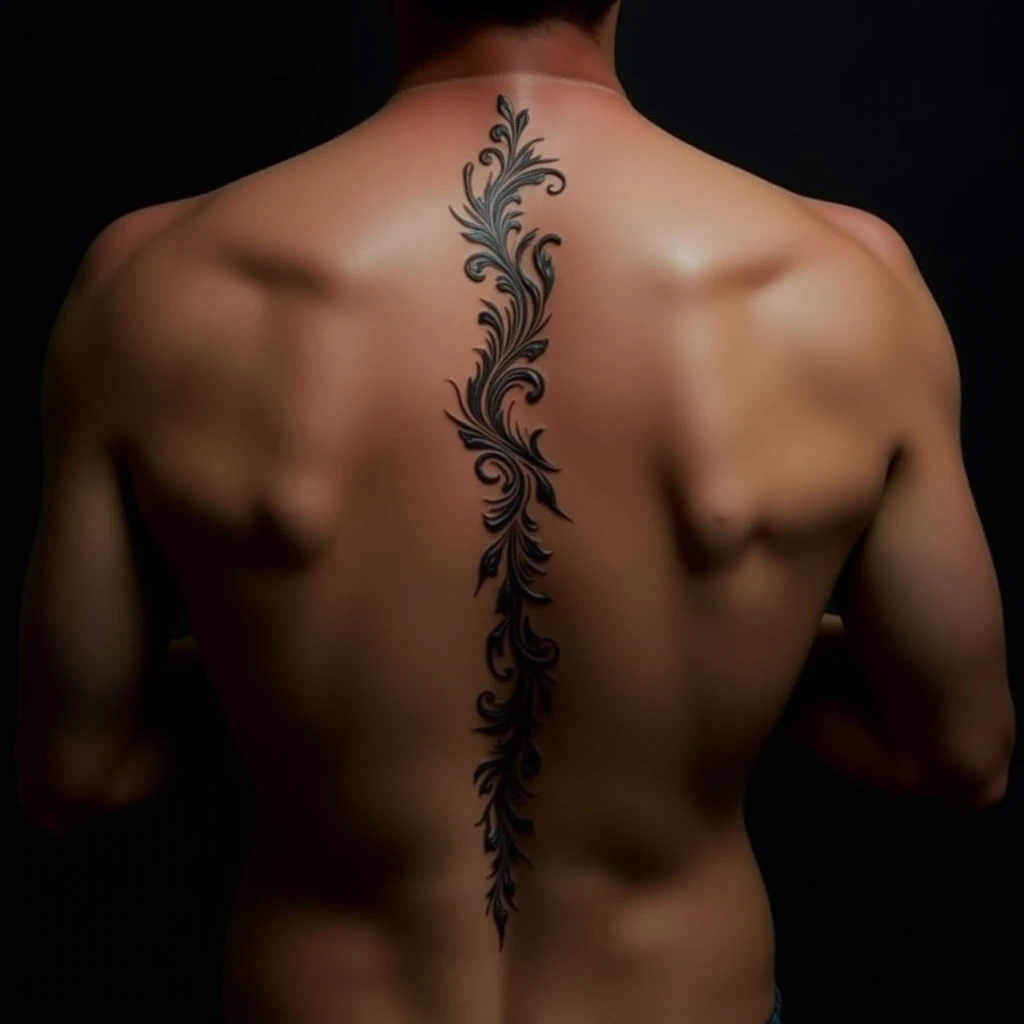
Discover elegant small spine tattoos featuring classic traditional fonts. Explore beautiful typography options in brown and black ink for a timeless look. Perfect for subtle, meaningful body art.
Small Spine Tattoos with Traditional Fonts: Simple & Stylish Ideas
Fine black linework defines intricate botanical elements flowing along the spine. High detail is achieved through subtle shading, creating depth within each leaf and curve. Varying line weights add visual interest to this illustrative piece.
This traditional style tattoo benefits from its placement; following the back’s natural form enhances its organic feel. The brown-black ink offers a timeless aesthetic, ideal for those seeking subtle yet meaningful body art with classic typography options. Size is medium, perfect for understated elegance.